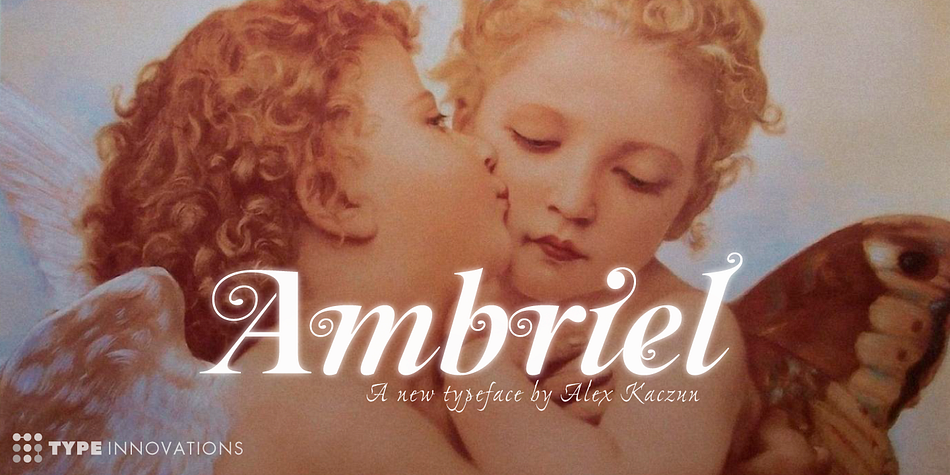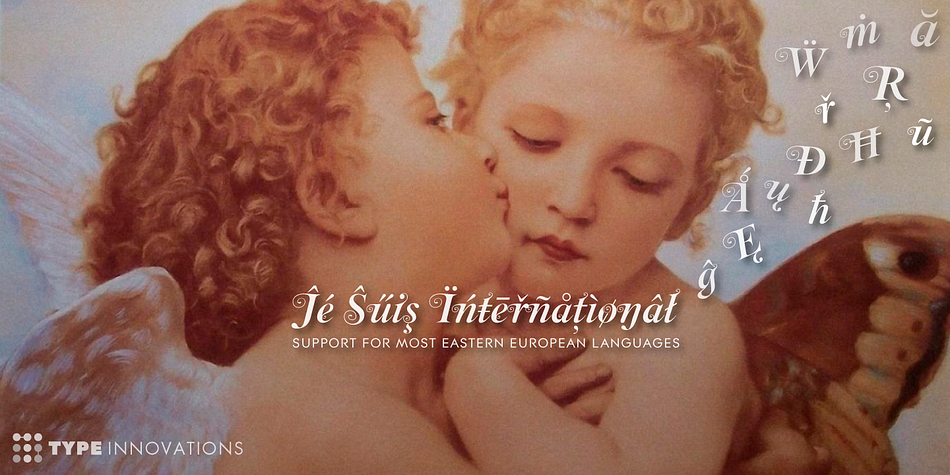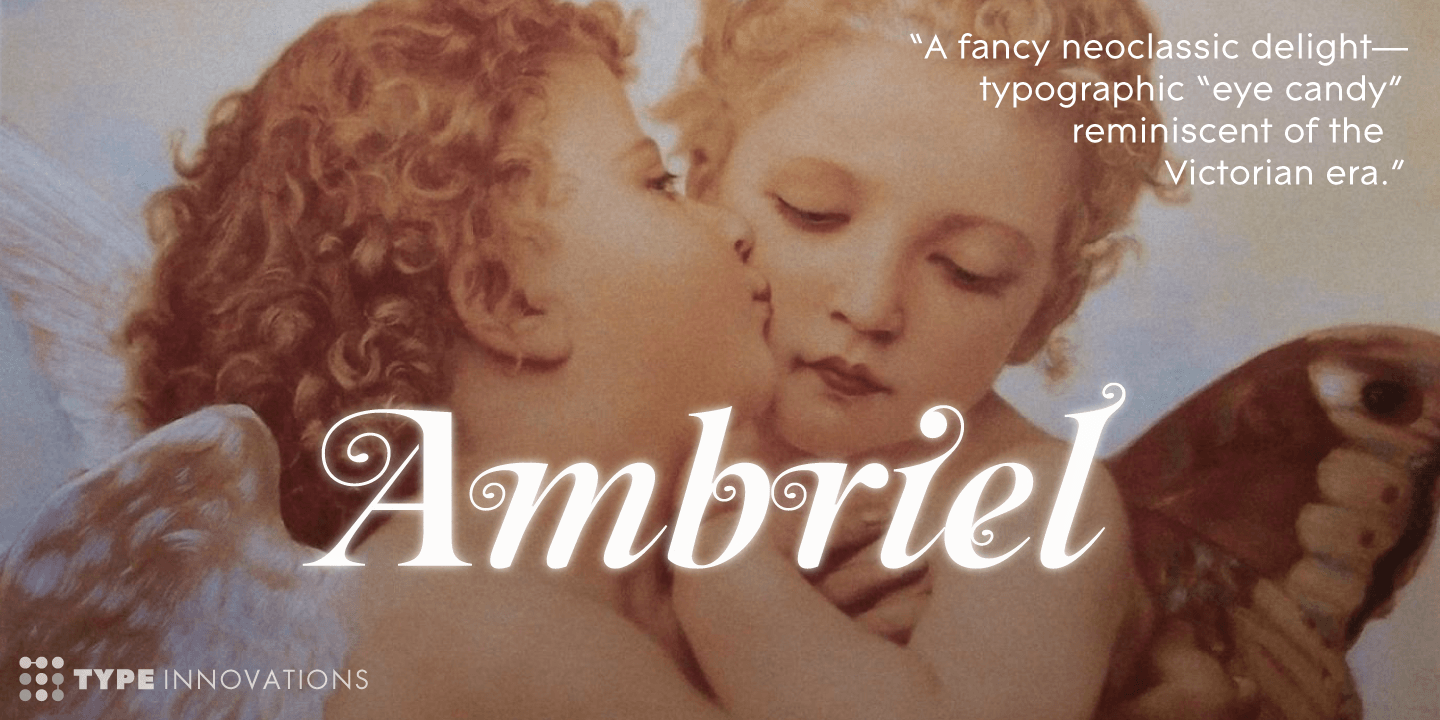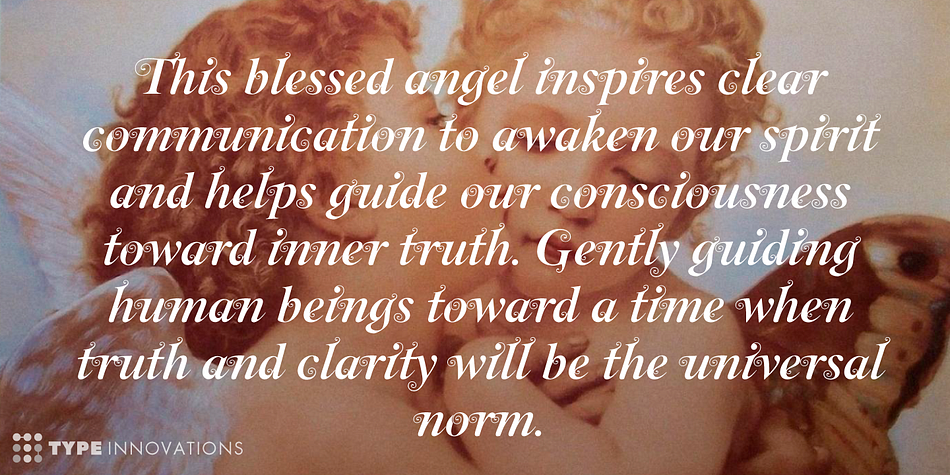
Ambriel is a display font published by Type Innovations.
Ambriel is a fancy neoclassic delight—typographic “eye candy” for the senses. Alex Kaczun embelished one of his earlier typefaces, Kaczun Oldstyle Italic, and infused it with many decorative elements including extravagant ball terminals along with many additional whimsical touches throughout. And, what he created is a truly unique display font reminiscent of the ornately decorated Victorian era.